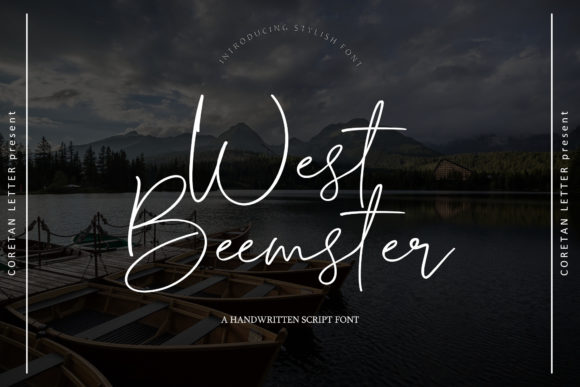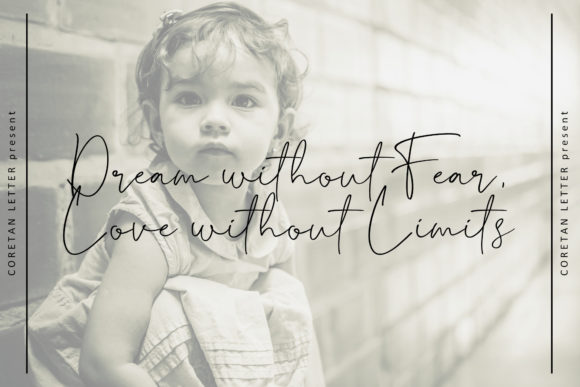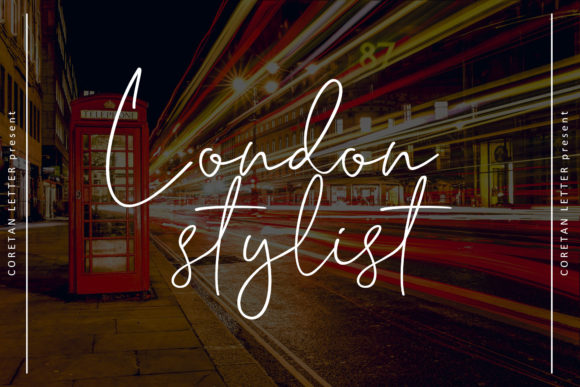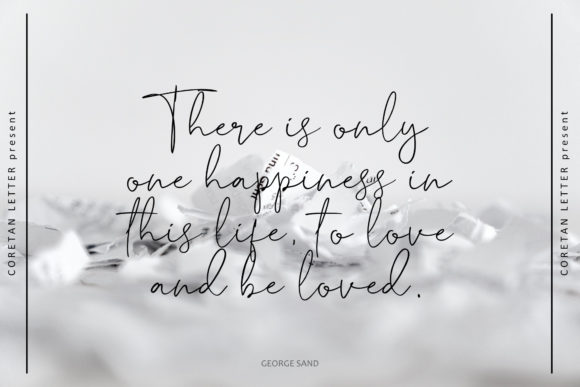
About West Beemster Font
West BeemsterĀ is a chic, refined script font that emanates sophistication and elegance. Its stylish alternates and ligatures make this font the perfect match for any project. West Beemster is PUA encoded which means you can access all of the amazing glyphs and ligatures with ease!